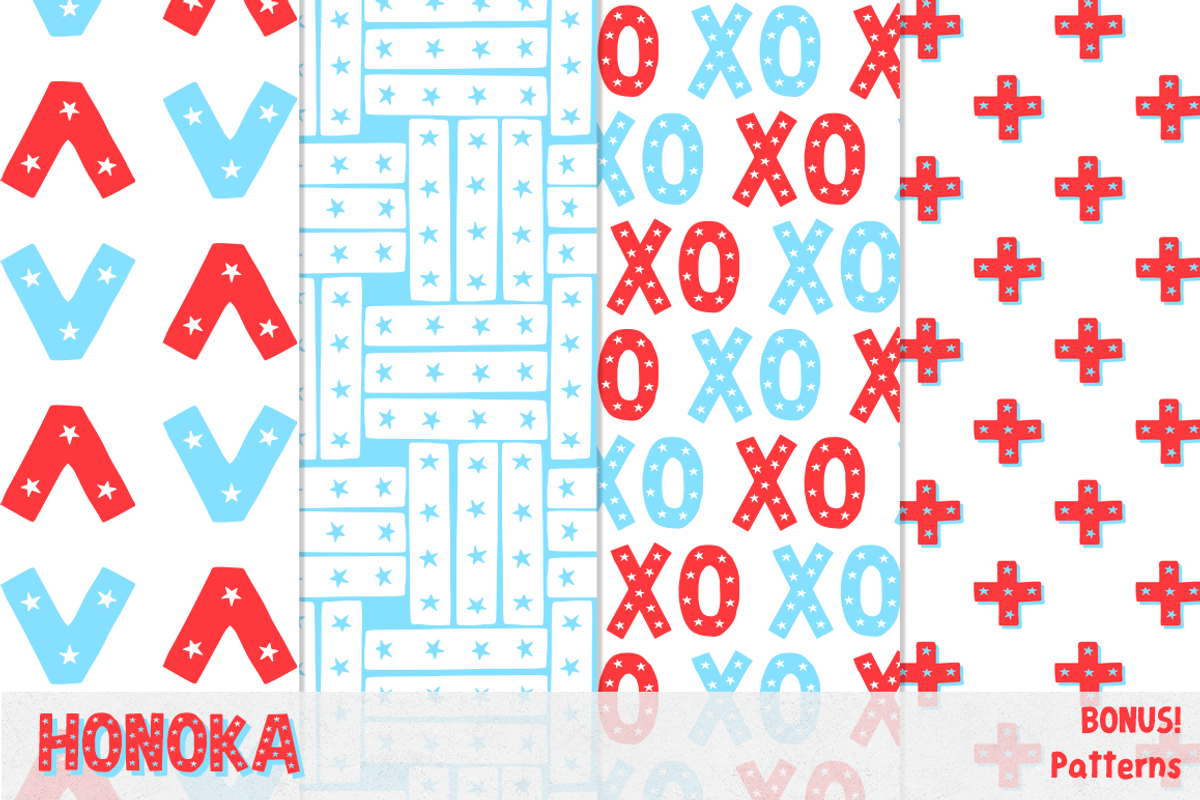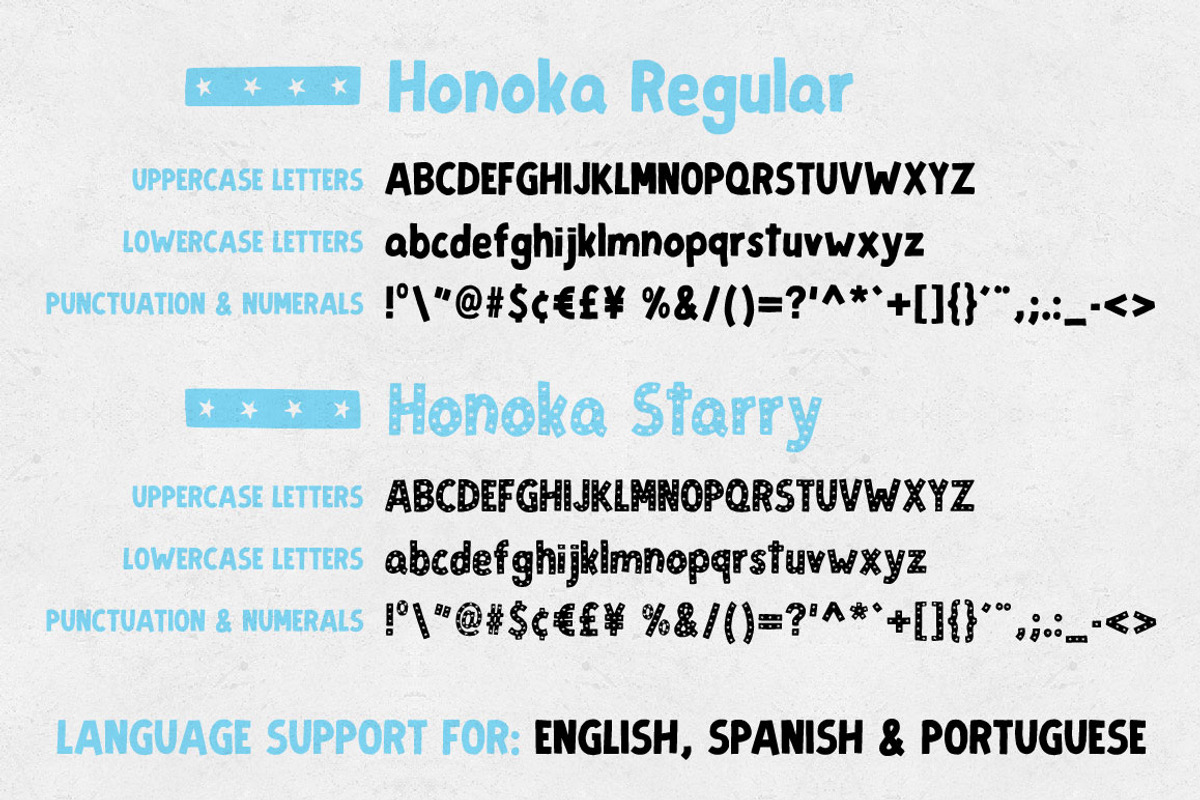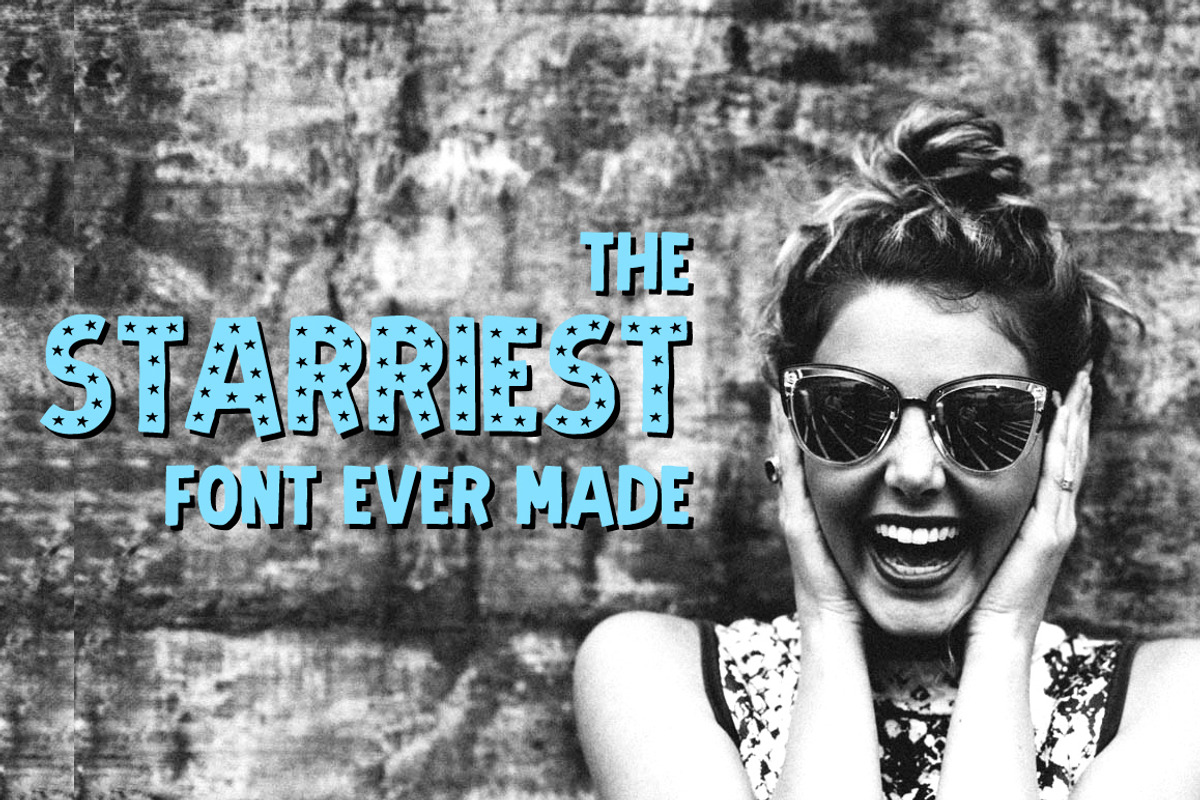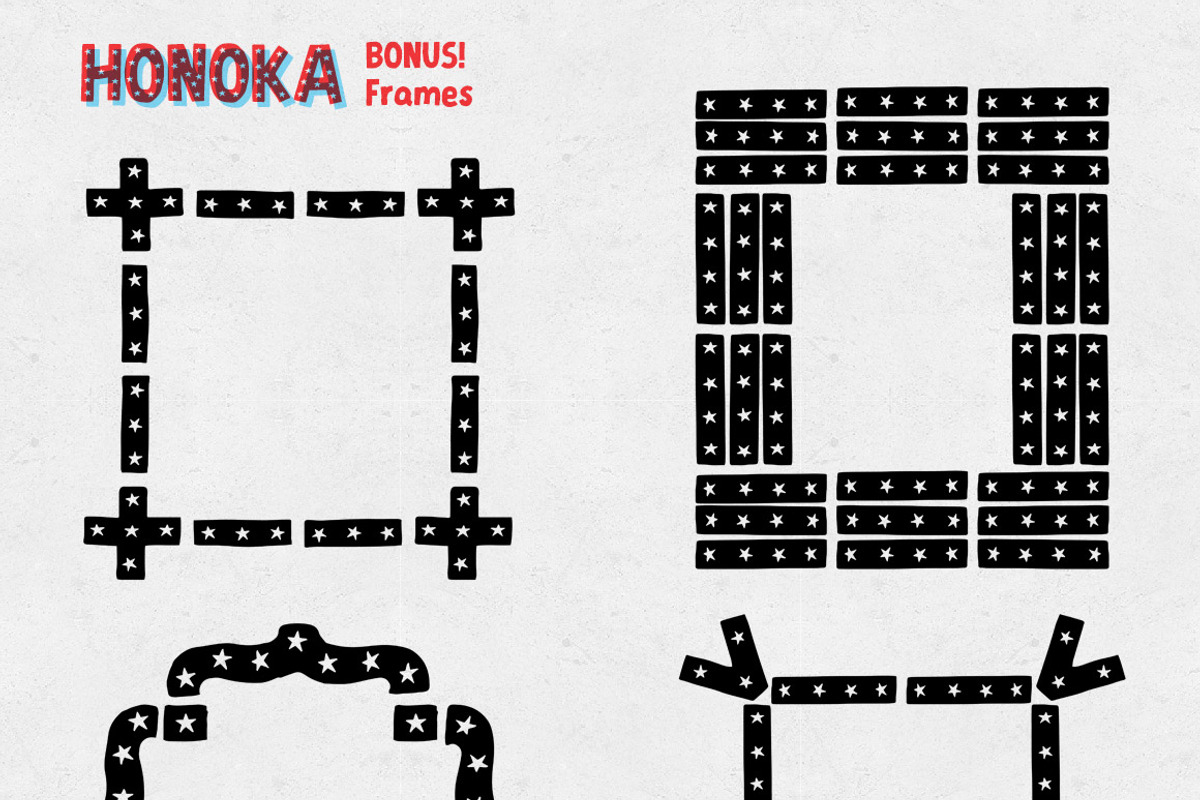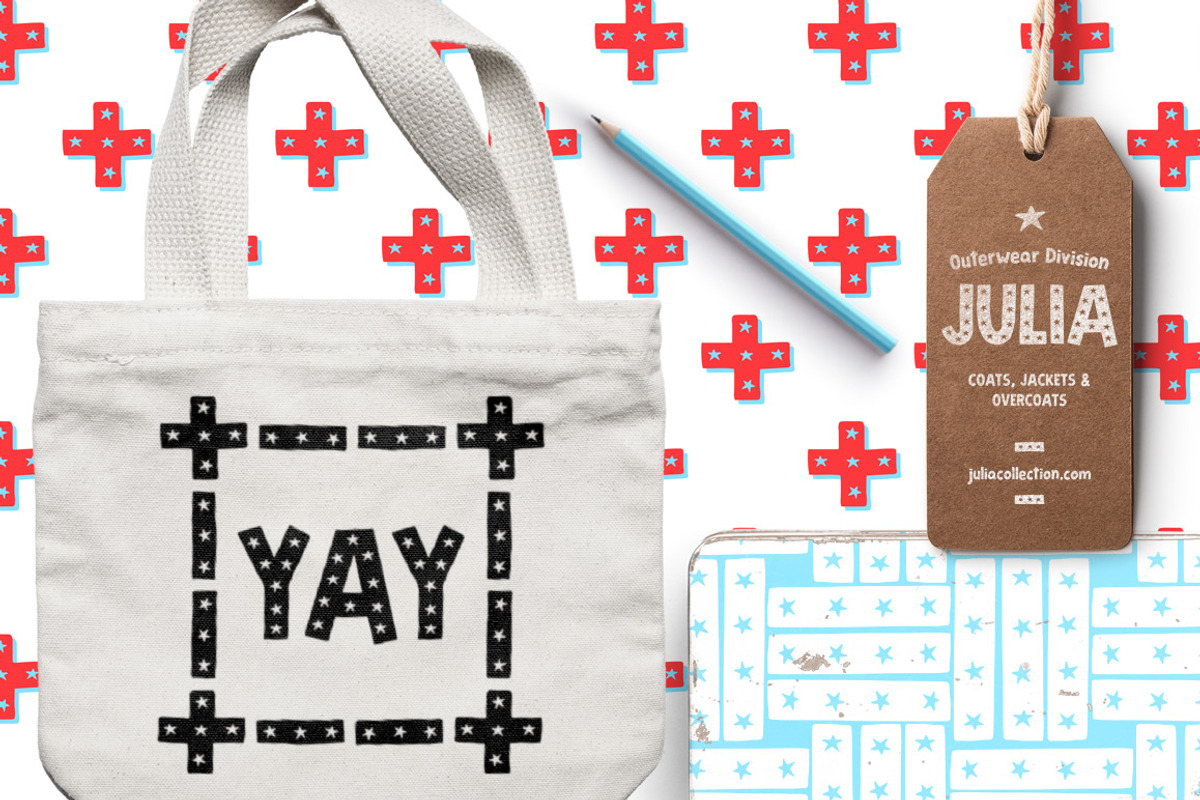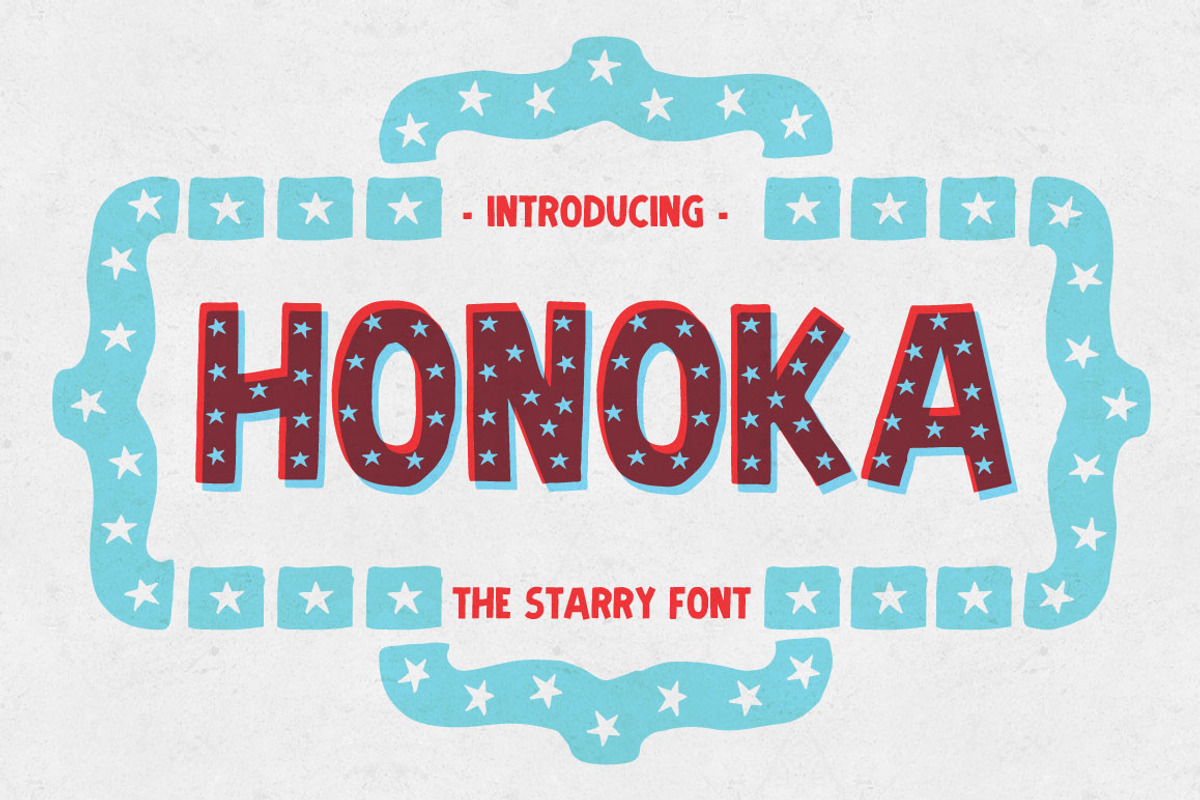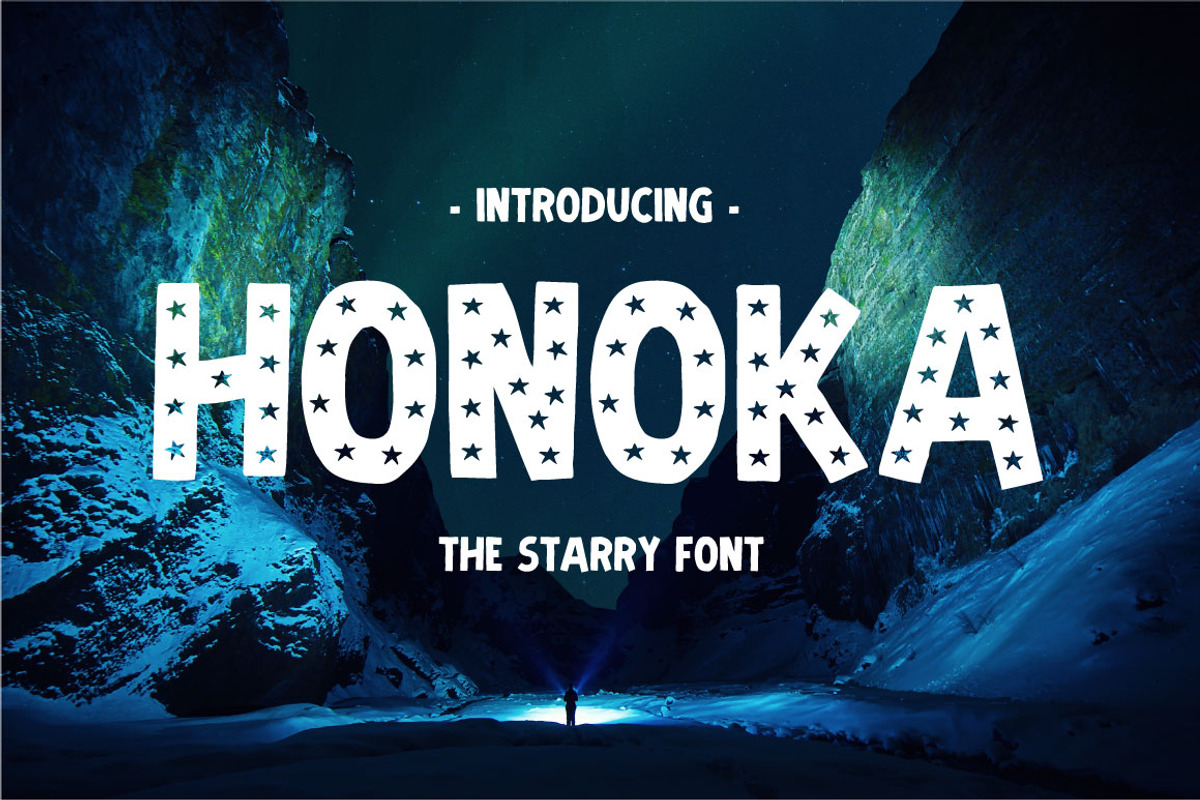
Honoka
This fun handmade font includes 2 different styles (regular and starry) for you to mix and match on all kinds of designs. This font is amazing for kids and teens related projects and also for scrapbooking, branding, websites, digital media, packaging design, greetings, apparel, merchandise, notebooks, envelopes, phone wallpapers and personal cards, invitations, postcards, calendars, wrapping papers and more. Plus, it's great for stickers, planners, posters and logos.